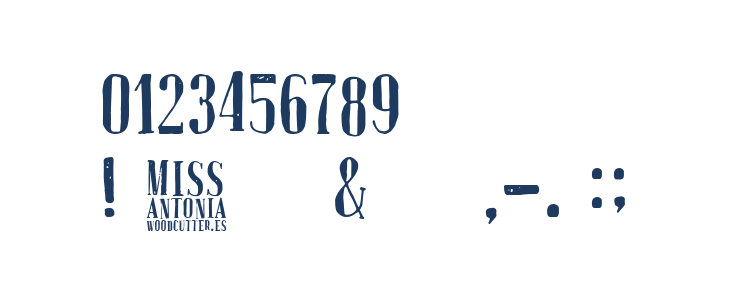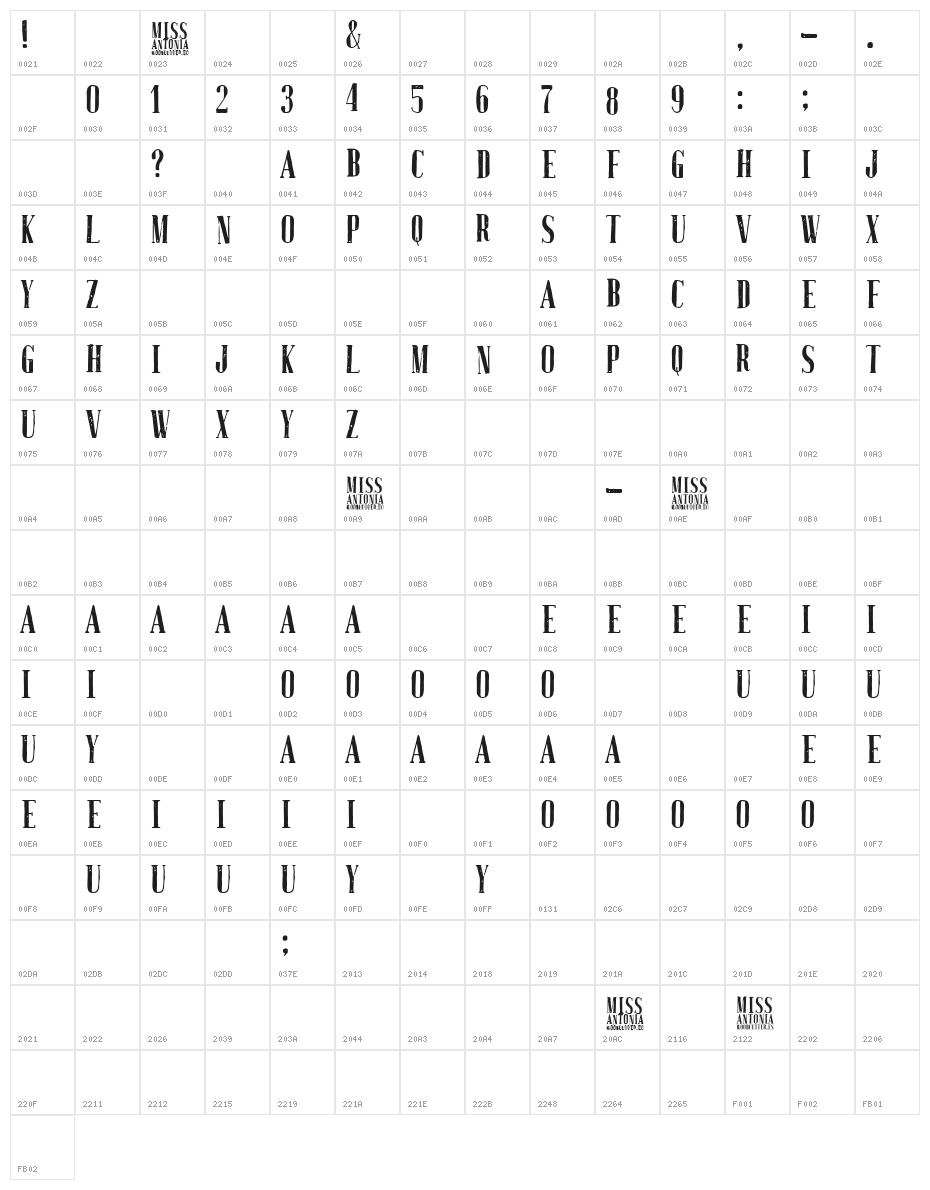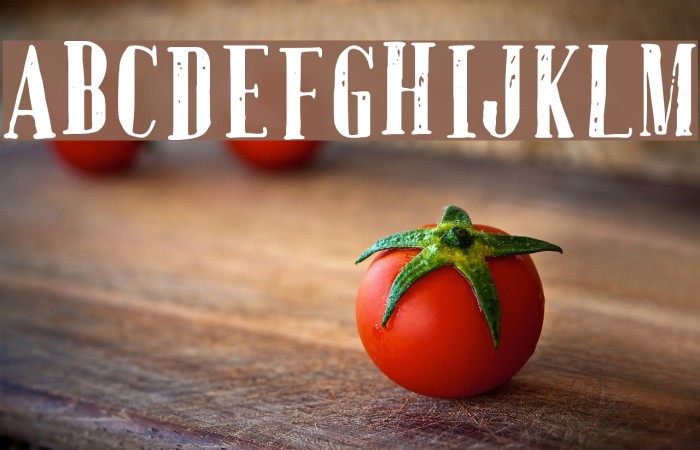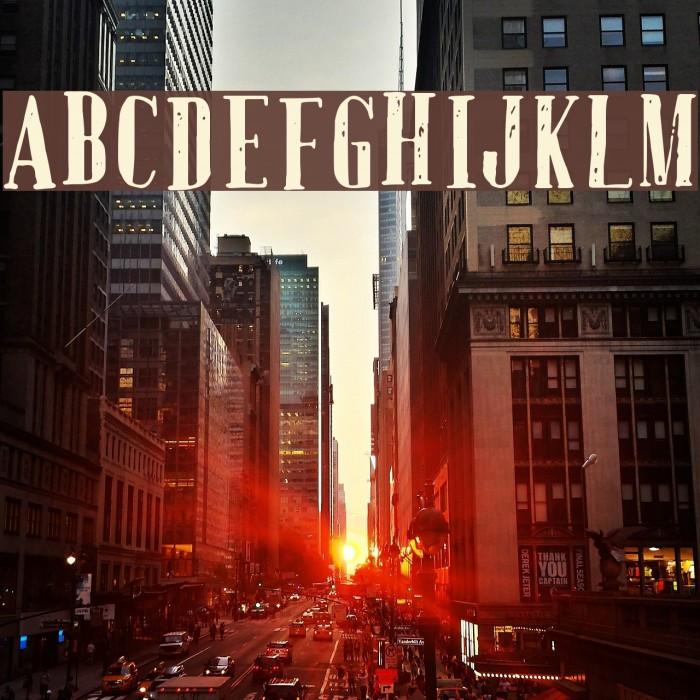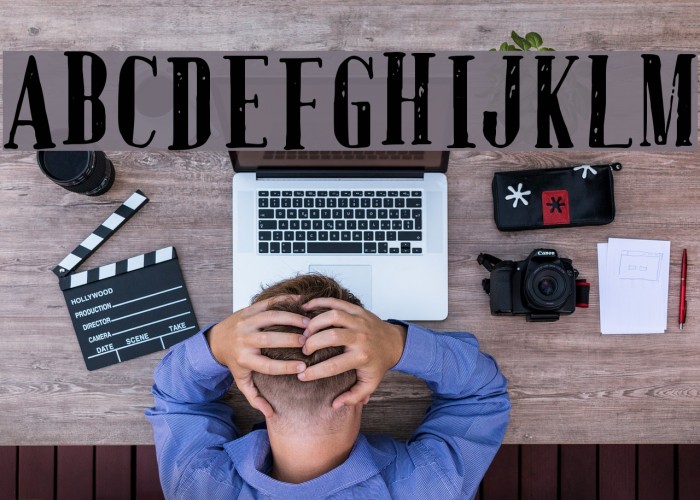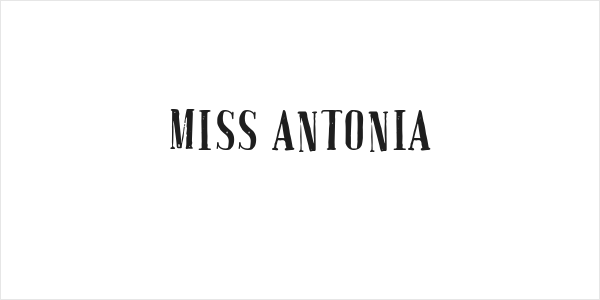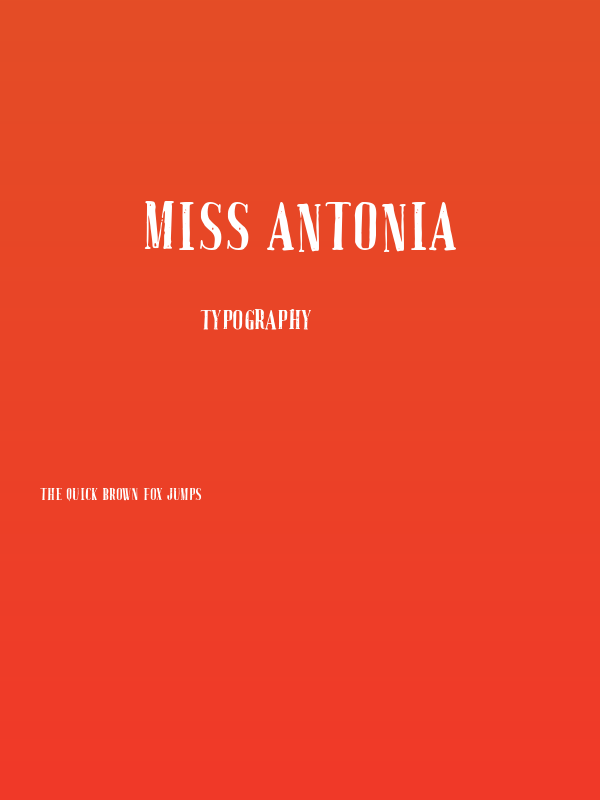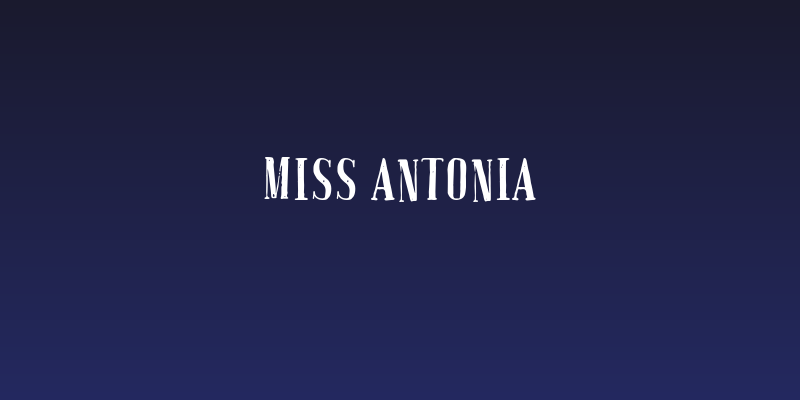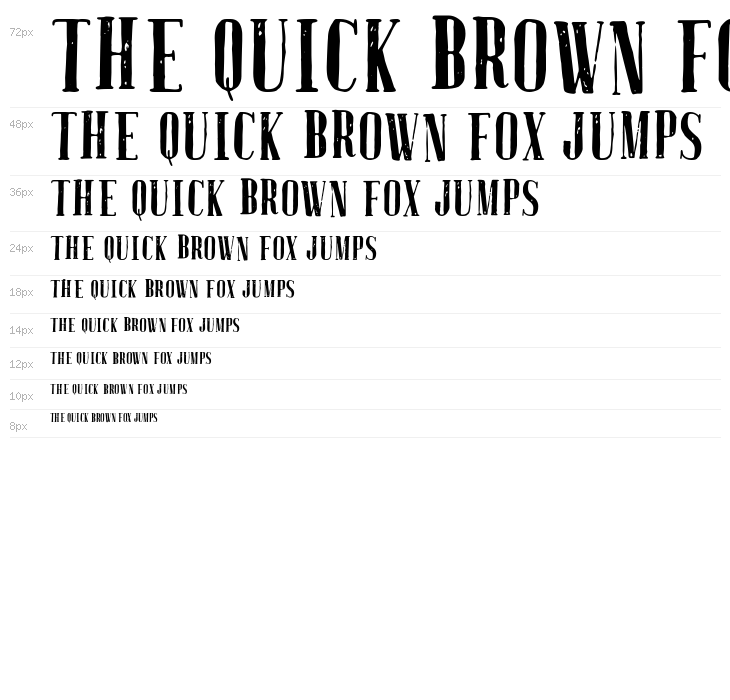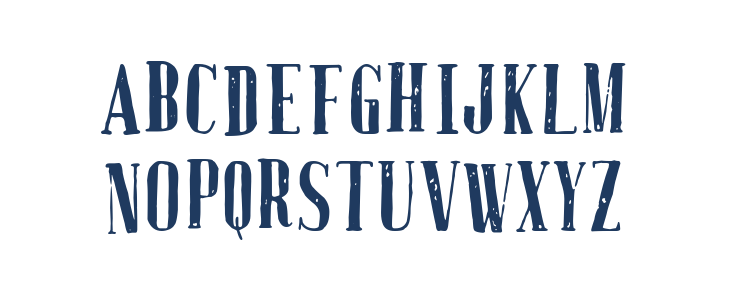
Miss Antonia Font
Miss Antonia Description
This font features a bold, distressed style with a vintage flair. The characters are tall and narrow, giving a condensed appearance. The texture includes rough, uneven edges and a weathered look, reminiscent of old woodcut prints. The uppercase letters are prominent and commanding, while the lowercase letters maintain the same rugged aesthetic. Numbers and special characters follow the same design, ensuring consistency throughout. This font's unique style makes it ideal for projects that require a touch of nostalgia or a handcrafted feel.
MISS-ANTONIA UPPERCASE
MISS-ANTONIA LOWERCASE
MISS-ANTONIA OTHER CHARS
| Proposed Projects | Ideal for vintage posters, branding, packaging, and any design needing a rustic, handcrafted touch. |